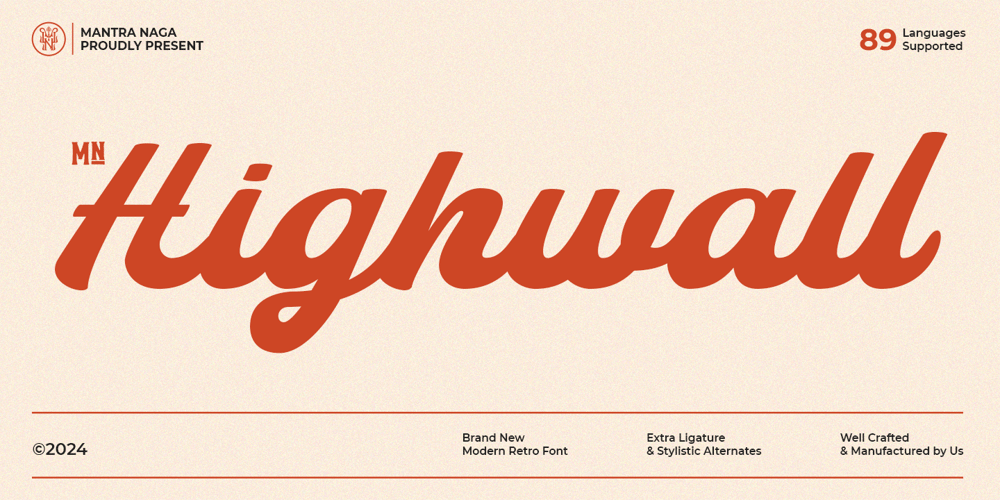
MN Highwall Font Family was designed by Fredo Eka Pratama and published by Mantra Naga Studio. MN Highwall contains 1 styles and family package options. MN Highwall is a modern retro script font that combines a retro look with a modern twist. It’s perfect for headlines, branding, or logos because its bold style makes it stand out. The font comes with special features like alternate characters and ligatures, making it more versatile. Plus, MN Highwall supports multiple languages, so it’s great for various design projects. Whether you’re aiming for a vintage vibe or a unique modern look, MN Highwall will make your text pop.bold script font, retro script font, modern script font, headline font, branding font, logotype font, multilingual font, OpenType font, alternate characters, ligatures, vintage style font, standout font, unique script font, versatile font, retro modern font